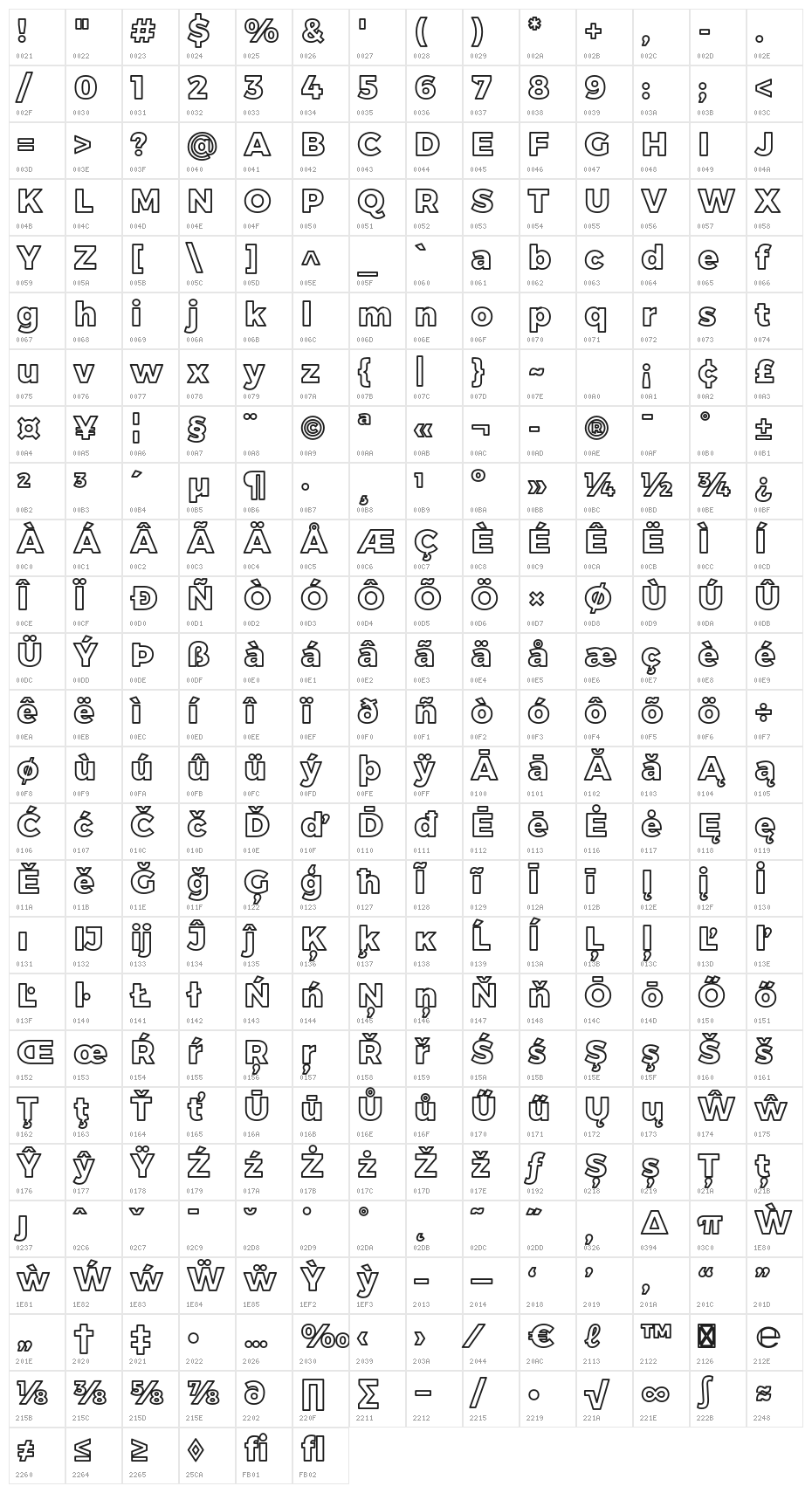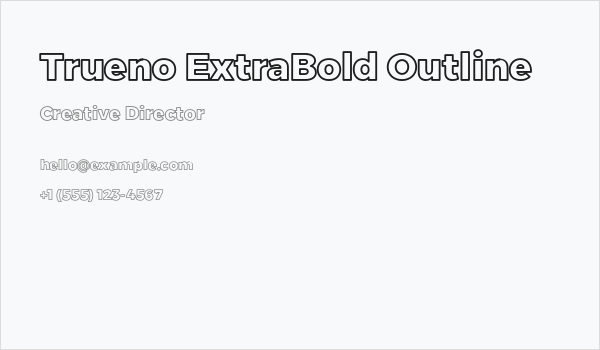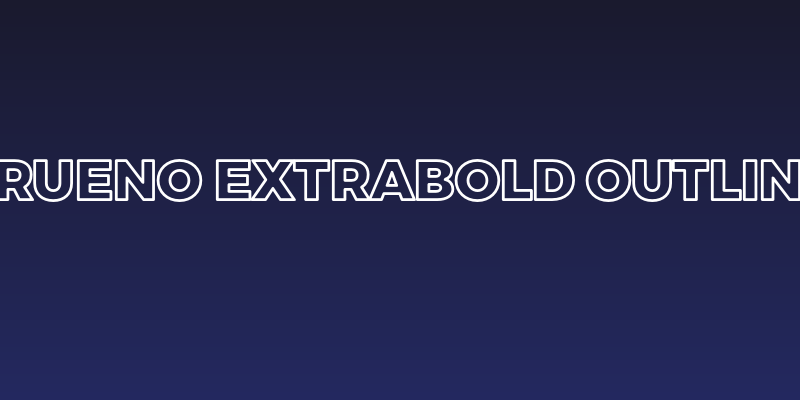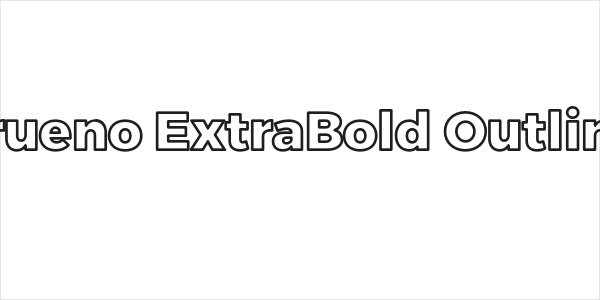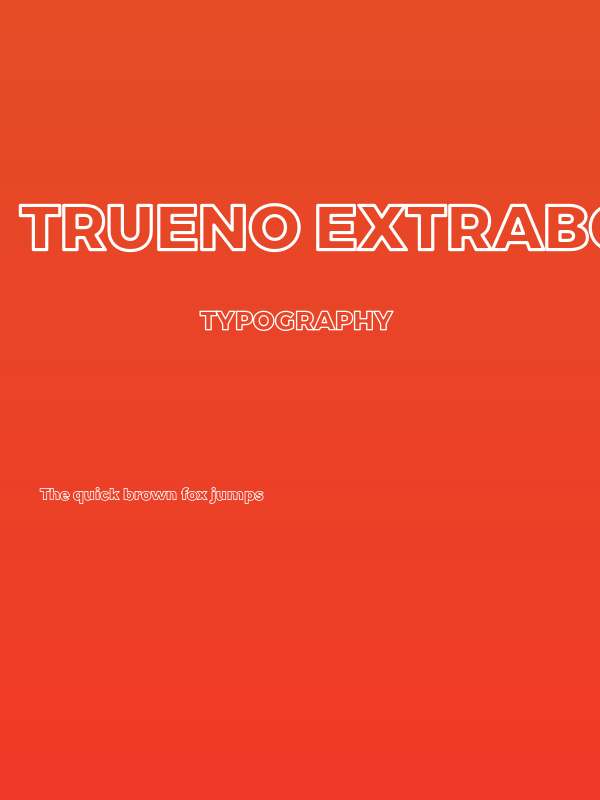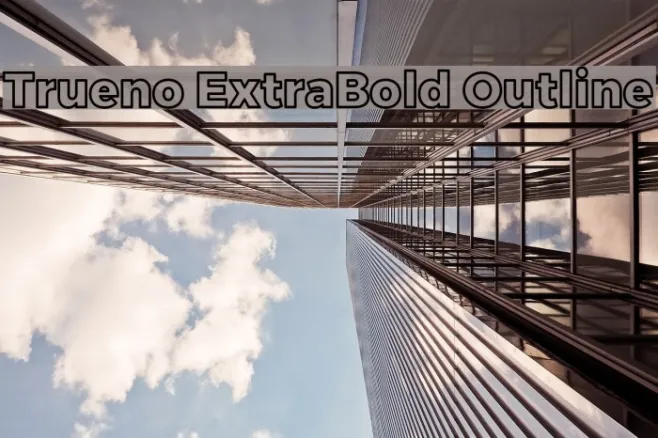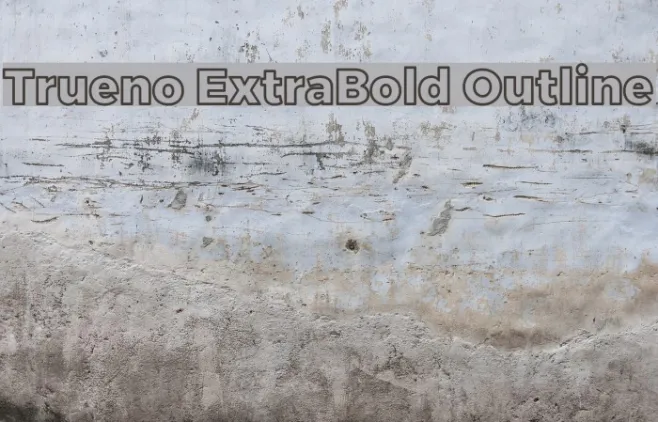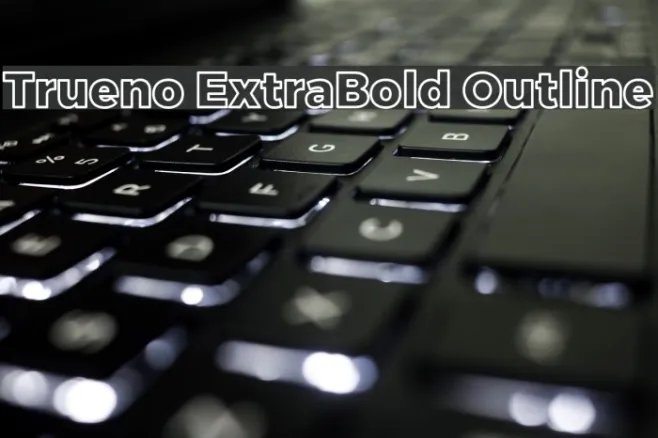
Trueno ExtraBold Outline Font
Trueno ExtraBold Outline Description
This font features a bold, outlined style that gives it a striking and modern appearance. The characters are uppercase and lowercase letters, numbers, and a range of special characters. The outline effect adds a dimensional quality, making it stand out on various backgrounds. The font maintains a consistent thickness throughout the characters, providing a uniform look. Its geometric shapes and clean lines contribute to a contemporary aesthetic, making it suitable for a variety of design applications. The spacing between characters is balanced, ensuring readability while maintaining its bold presence.
| Proposed Projects | Ideal for headlines, posters, branding, and any design needing a bold statement. |